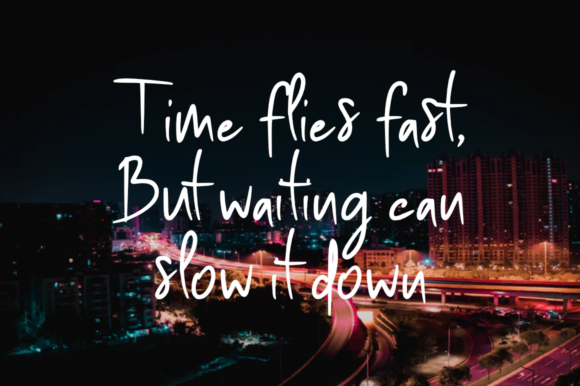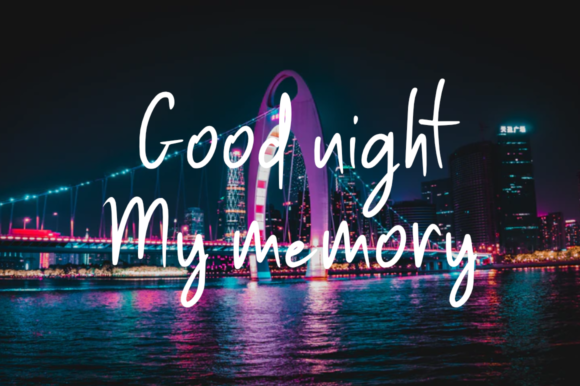
Europhia Font
db-ku.com - Script & Handwritten -- Europhia is a cute, simple and casual handwritten font. Whatever the topic, this font will be a wonderful asset to your font library, as it has the potential to enhance any creation.